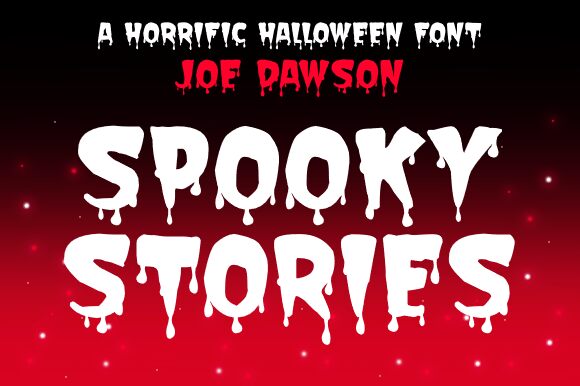
Experience the chilling atmosphere of ‘Spooky Stories’, a hauntingly beautiful font created by Joseph Dawson. With its extra-bold weight and Halloween-inspired style, this font is ideal for bringing your eerie narratives to life.
Whether you're designing book covers that will grip readers from the first glance or crafting movie titles that will send shivers down viewers' spines, ‘Spooky Stories’ is the perfect choice.
Embrace the supernatural and captivate your audience with this spellbinding typeface that will add an unforgettable touch of darkness to any Halloween-themed project.
Spooky Stories